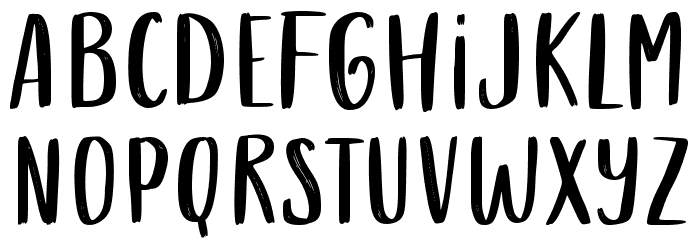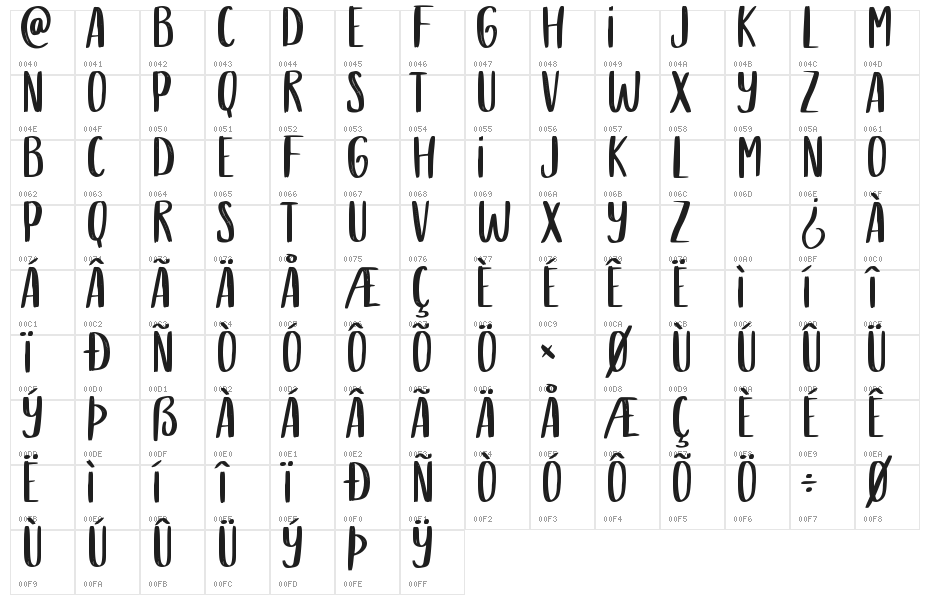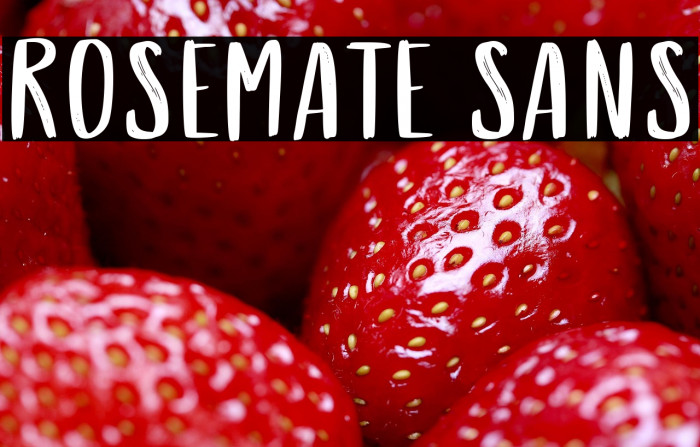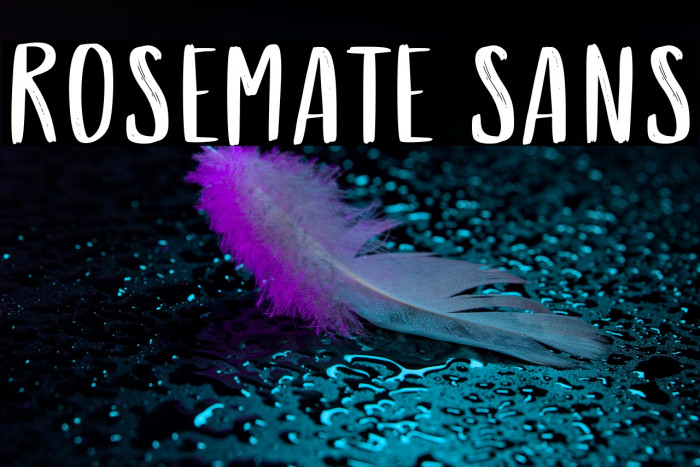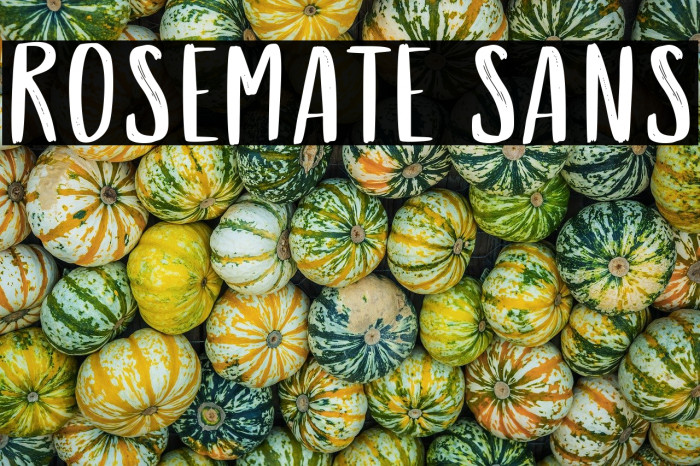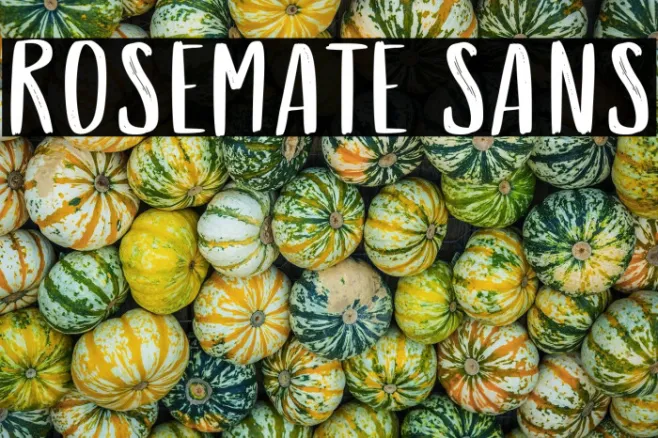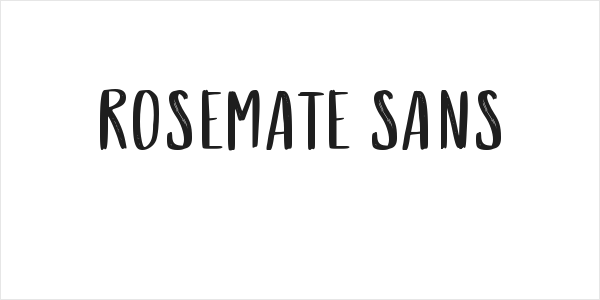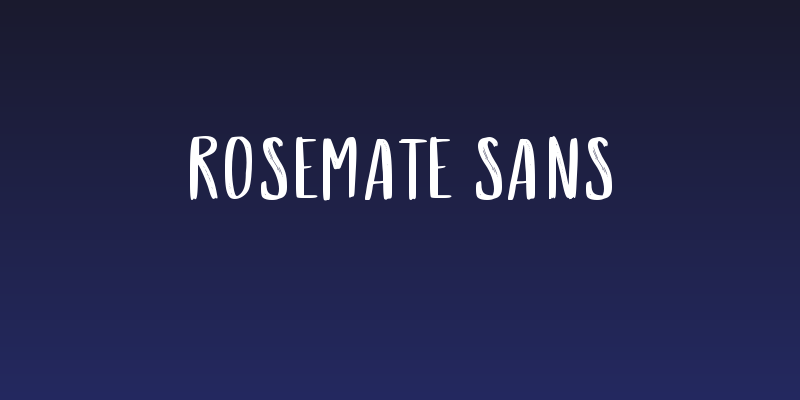
Rosemate Sans Font
Rosemate Sans Description
This font features a playful and bold handwritten style, characterized by its thick strokes and casual appearance. The letters are slightly irregular, giving it a lively and energetic feel. The uppercase letters maintain a consistent height, while the lowercase letters vary slightly in size, adding to its informal charm. The strokes are rounded and smooth, contributing to a friendly and approachable aesthetic. This font is well-suited for projects that require a personal touch, such as invitations, greeting cards, or branding for creative businesses.
| Proposed Projects | Ideal for invitations, greeting cards, and creative branding. |